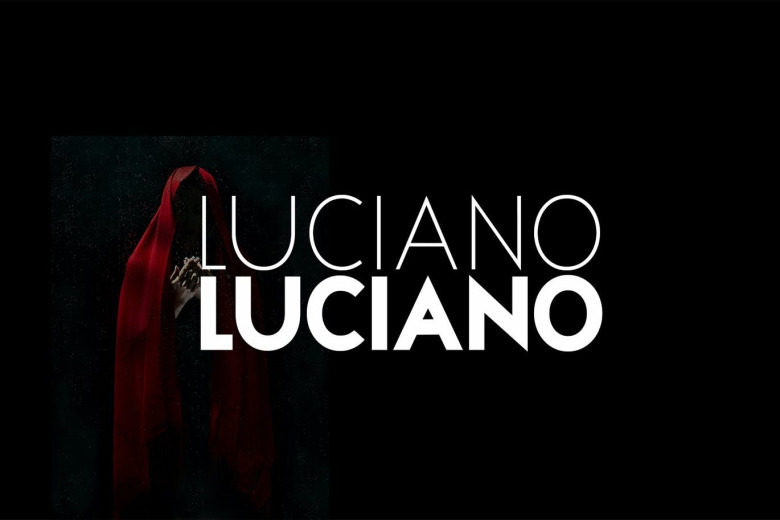
Luciano Font
Luciano Display is a unique modern-elegant typeface that has a Extended Latin Glyph with Web-fonts. This is a very flexible font that can be used in wide variety of different sizes. Perfect to use on branding, logos, headlines, Captions by Luciano Font. as a cool text overlay over any backdrop image
With the body copy, I know this pair of capitals would be good, a strong weight with an adequate bit of roundness in the lowercase ideal for many uses. In a way, this sign is taking a shower and getting cleaned up, stripping down to its essence, staying warm, sticking its tongue out, but still being versatile and easy to read.
Luciano Display Sans Font